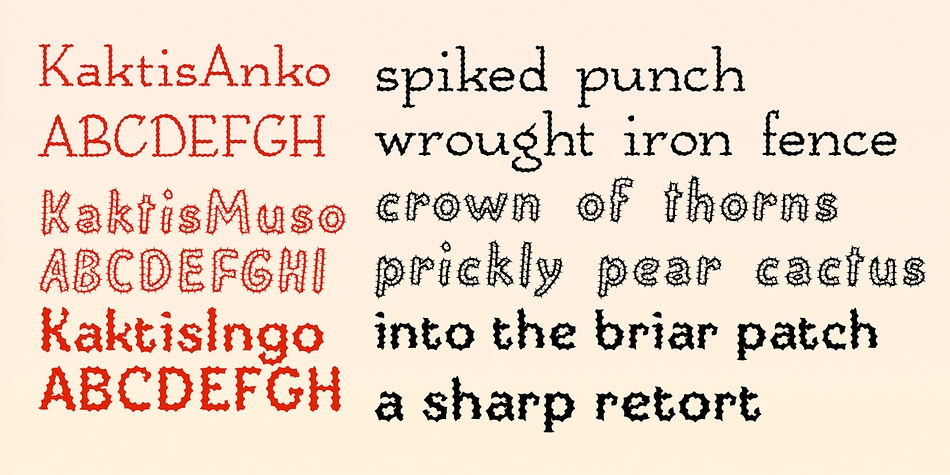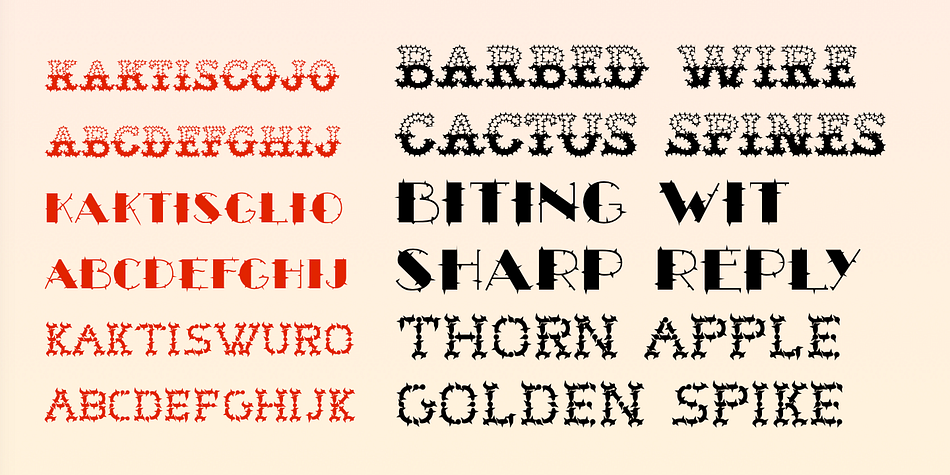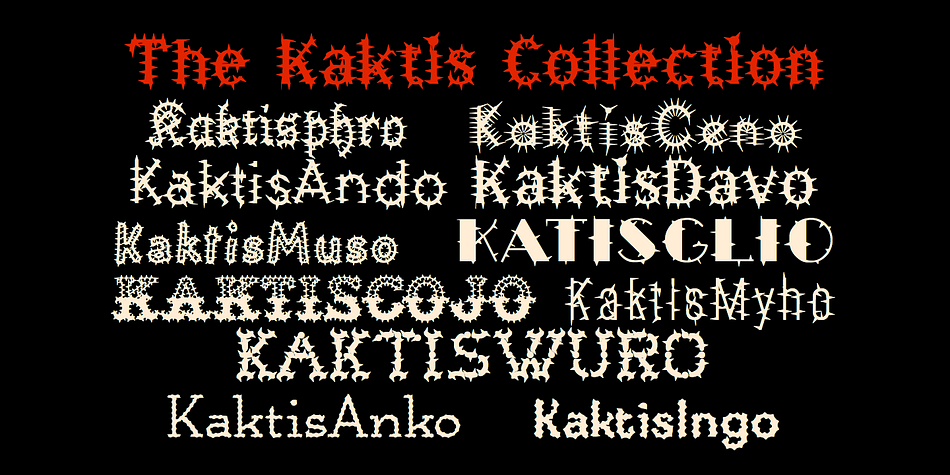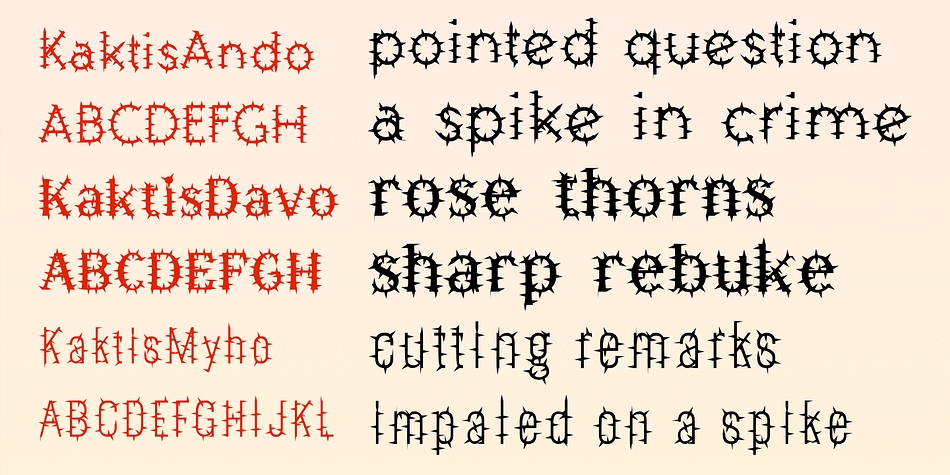
Designed by Robert Schenk, Kaktis is a multiple classification font family. This typeface has eleven styles and was published by Ingrimayne Type.
The Kaktis collection features eleven typefaces that have spikes or spines. Some have short spikes, some long, some sparse spines and others abundant spikes. They are novelty fonts with limited uses, but there can be times when a typeface of this sort is useful, perhaps for a sharp rebuke or a pointed reminder. These faces were constructed in the mid 1990s using a font distortion program.
Foundry | Ingrimayne Type |
Fonts | 11 |
Released | 1995 |
Styles | Art Deco, Display Serif, Hand Display, Wood Type |
Designer | Robert Schenk |